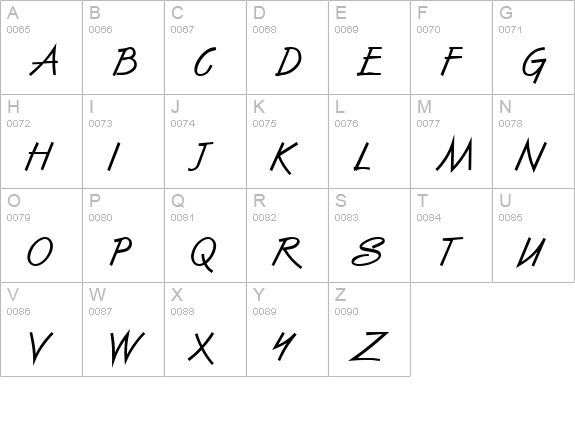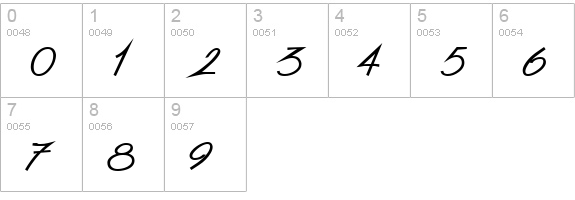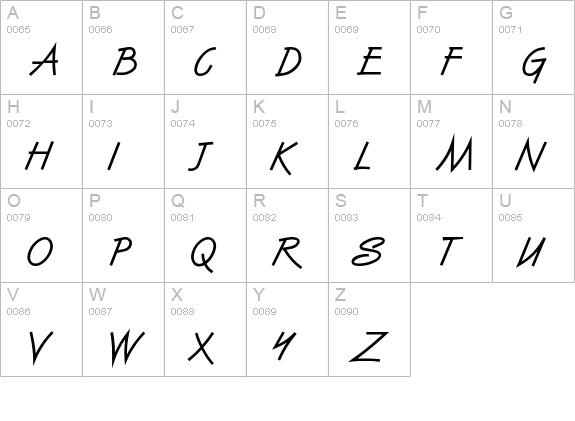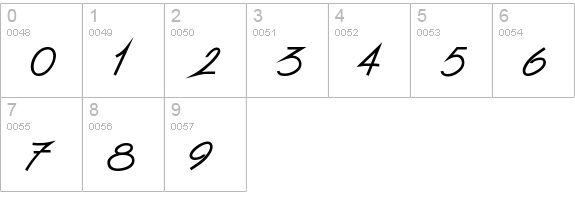
Vizier BoldItalic Font Details
Introducing Vizier BoldItalic, a captivating and versatile font that effortlessly combines elegance with a touch of boldness. This typeface is perfect for those seeking to make a statement with their designs, whether it be in print or digital media. Vizier BoldItalic stands out from the crowd with its unique and distinctive appearance. The bold strokes and italicized slant create a sense of dynamism and movement, truly capturing the attention of the viewer. Its sleek and modern design lends itself well to a wide range of applications, from branding and logo design to editorial layouts and web graphics. What sets Vizier BoldItalic apart is not only its striking aesthetics, but also its accessibility. This font is freely available to download at FontsMarket.com, allowing designers and creatives alike to unleash their creativity without any limitations. This means that you can experiment with Vizier BoldItalic in your projects, without having to worry about breaking your budget. Whether you're designing for a high-end fashion brand, a cutting-edge tech startup, or simply want to add a touch of sophistication to your personal projects, Vizier BoldItalic is the perfect choice. Its versatility and timeless appeal make it a valuable asset in any designer's toolkit. Don't miss out on this opportunity to elevate your designs with Vizier BoldItalic. Download it for free at FontsMarket.com and let your creativity soar to new heights.